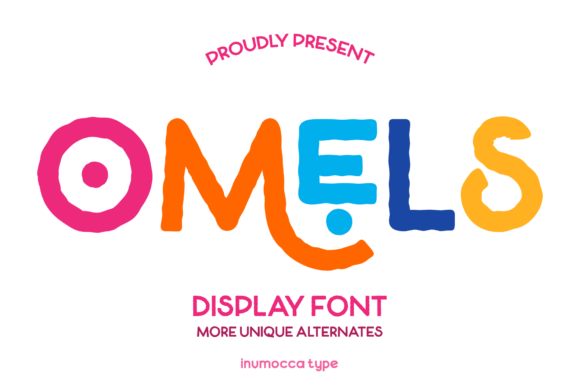
Introducing Omels Font: A Fun and Dynamic Typeface for Creative Projects
Are you looking for a font that can add a touch of fun and joy to your creative projects? Look no further than Omels Font, a unique and dynamic typeface that is perfect for a wide range of applications. In this article, we’ll take a closer look at Omels Font, its features, and how it can be used to elevate your branding, movie titles, headlines, book covers, magazine covers, posters, quotes, and logos.
What is Omels Font?
Omels Font is a carefully crafted typeface that combines fun and joyful characters with strong and dynamic accents. Its unique design makes it an excellent choice for projects that require a bold and eye-catching font. Whether you’re working on a branding campaign, a movie title, or a book cover, Omels Font is sure to make a statement.
Key Features of Omels Font
So, what makes Omels Font so special? Here are some of its key features:
- Fun and Joyful Characters: Omels Font features characters that are playful and fun, making it perfect for projects that require a lighthearted touch.
- Strong and Dynamic Accents: The font’s strong and dynamic accents add a touch of sophistication and elegance, making it suitable for a wide range of applications.
- Excellent Legibility: Omels Font is designed to be highly legible, even at small sizes, making it perfect for use in body text or captions.
- Versatile: Omels Font can be used for a wide range of projects, from branding and movie titles to book covers and magazine covers.
Use Cases for Omels Font
Omels Font is an incredibly versatile typeface that can be used for a wide range of projects. Here are some examples of how you can use Omels Font:
- Branding: Use Omels Font to create bold and eye-catching logos that will help your brand stand out.
- Movie Titles: Omels Font is perfect for creating movie titles that require a bold and dynamic font.
- Headline Letters: Use Omels Font to create attention-grabbing headline letters that will draw readers in.
- Book Covers: Omels Font is an excellent choice for book covers, particularly for fiction and children’s books.
- Magazine Covers: Use Omels Font to create eye-catching magazine covers that will stand out on newsstands.
- Posters: Omels Font is perfect for creating bold and eye-catching posters that will grab attention.
- Quotes and Lettering: Use Omels Font to create beautiful and inspiring quotes and lettering.
- Logos: Omels Font can be used to create unique and memorable logos that will help your brand stand out.
Why Choose Omels Font?
So, why should you choose Omels Font for your next project? Here are just a few reasons:
- Unique Design: Omels Font features a unique design that will help your project stand out from the crowd.
- Highly Legible: Omels Font is designed to be highly legible, even at small sizes.
- Versatile: Omels Font can be used for a wide range of projects, from branding and movie titles to book covers and magazine covers.
Tips for Using Omels Font
Here are a few tips for using Omels Font:
- Use it Boldly: Omels Font is designed to be used boldly, so don’t be afraid to experiment with different sizes and colors.
- Experiment with Colors: Omels Font looks great in a wide range of colors, so don’t be afraid to experiment and find the perfect color for your project.
- Pair it with Other Fonts: Omels Font can be paired with other fonts to create a unique and interesting look.
Omels Font is a unique and dynamic typeface that is perfect for creative projects that require a fun and bold font. With its strong and dynamic accents, excellent legibility, and versatility, Omels Font is an excellent choice for a wide range of applications. Whether you’re working on a branding campaign, a movie title, or a book cover, Omels Font is sure to make a statement.